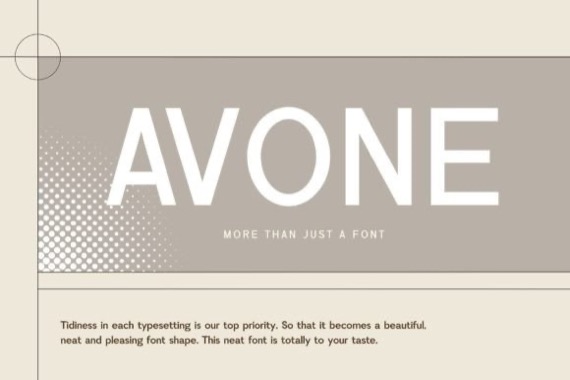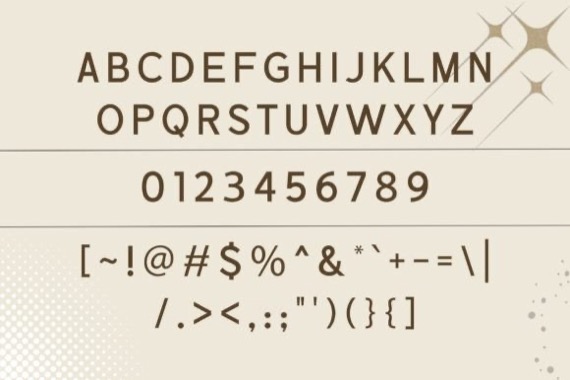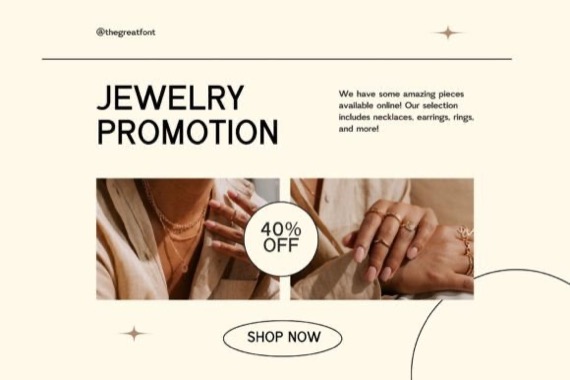
Avone is a chic and clean sans serif font that was created and shared by Alifgraphic. Fall in love with its incredibly versatile style and use it to create gorgeous wedding invitations, beautiful stationary art, eye-catching social media posts, and much more!
Avone Sans Serif Font